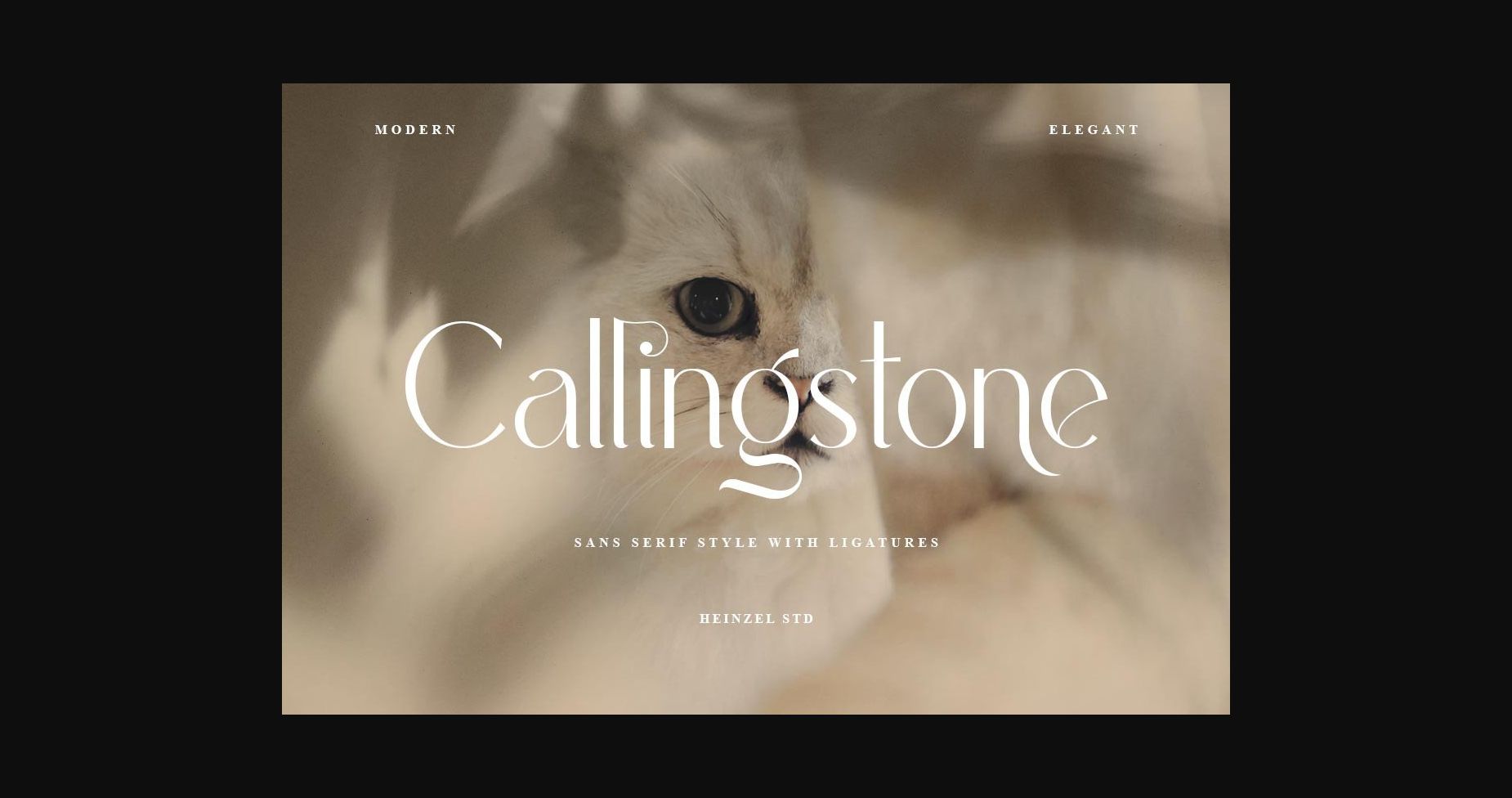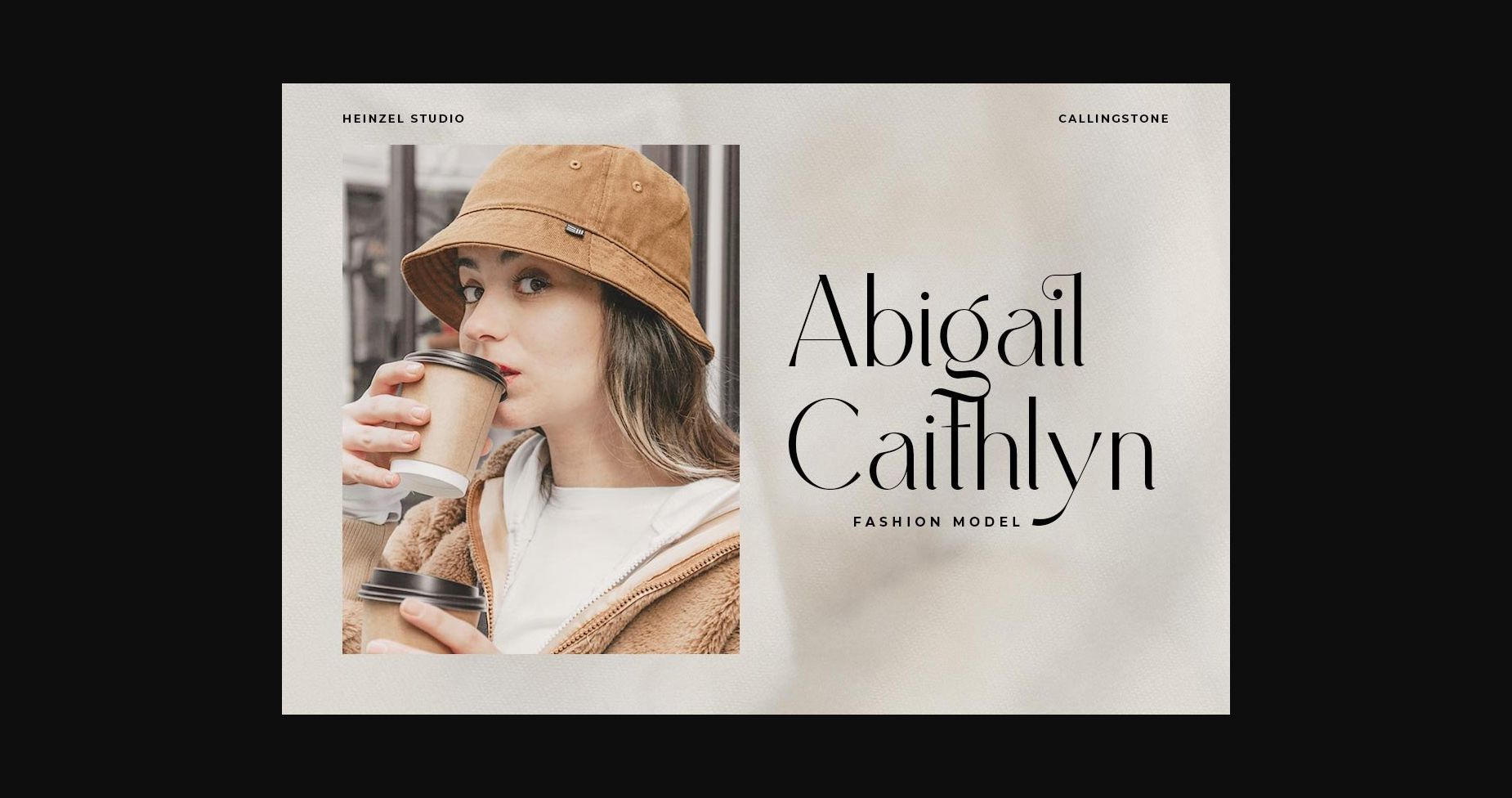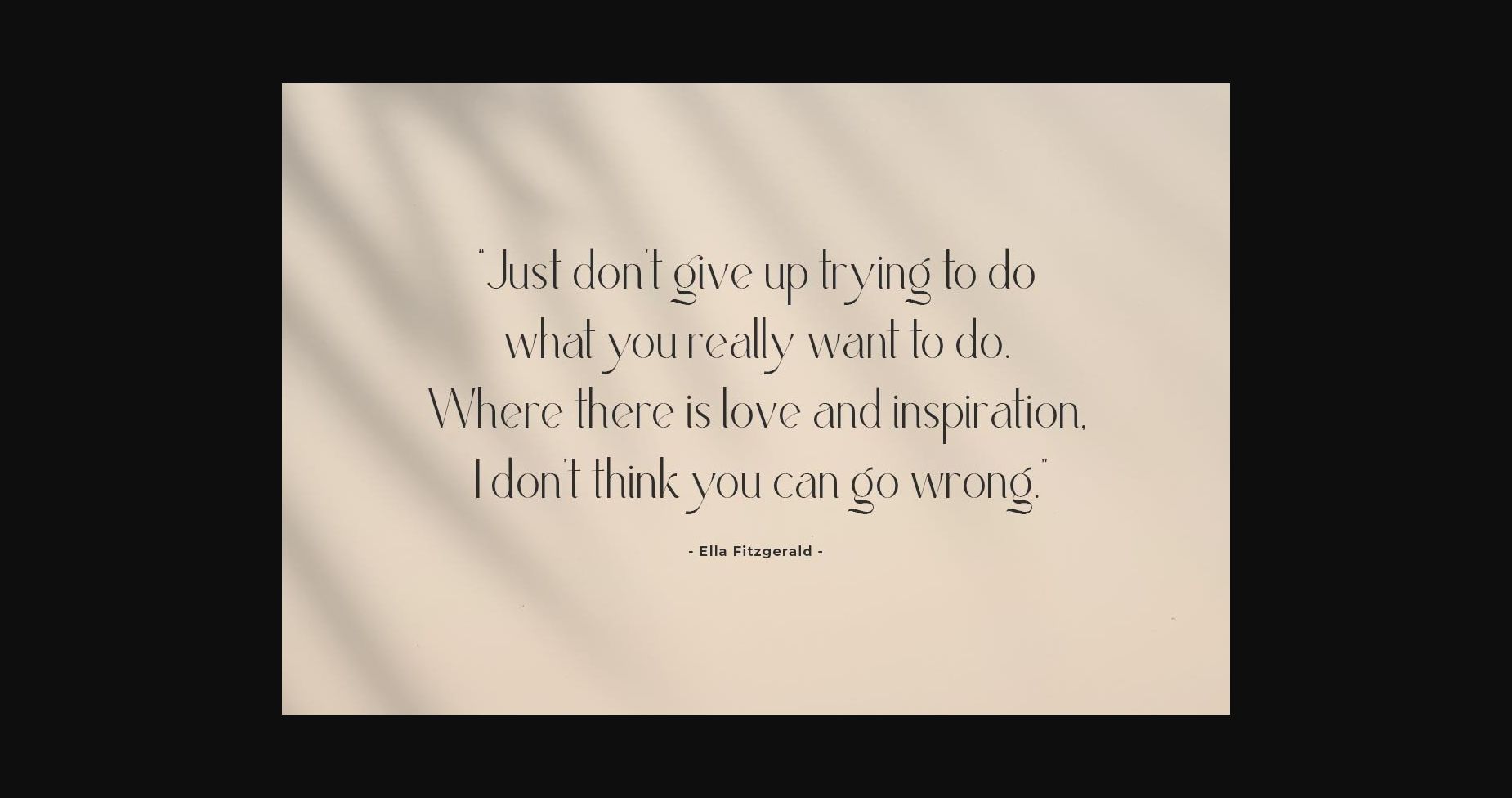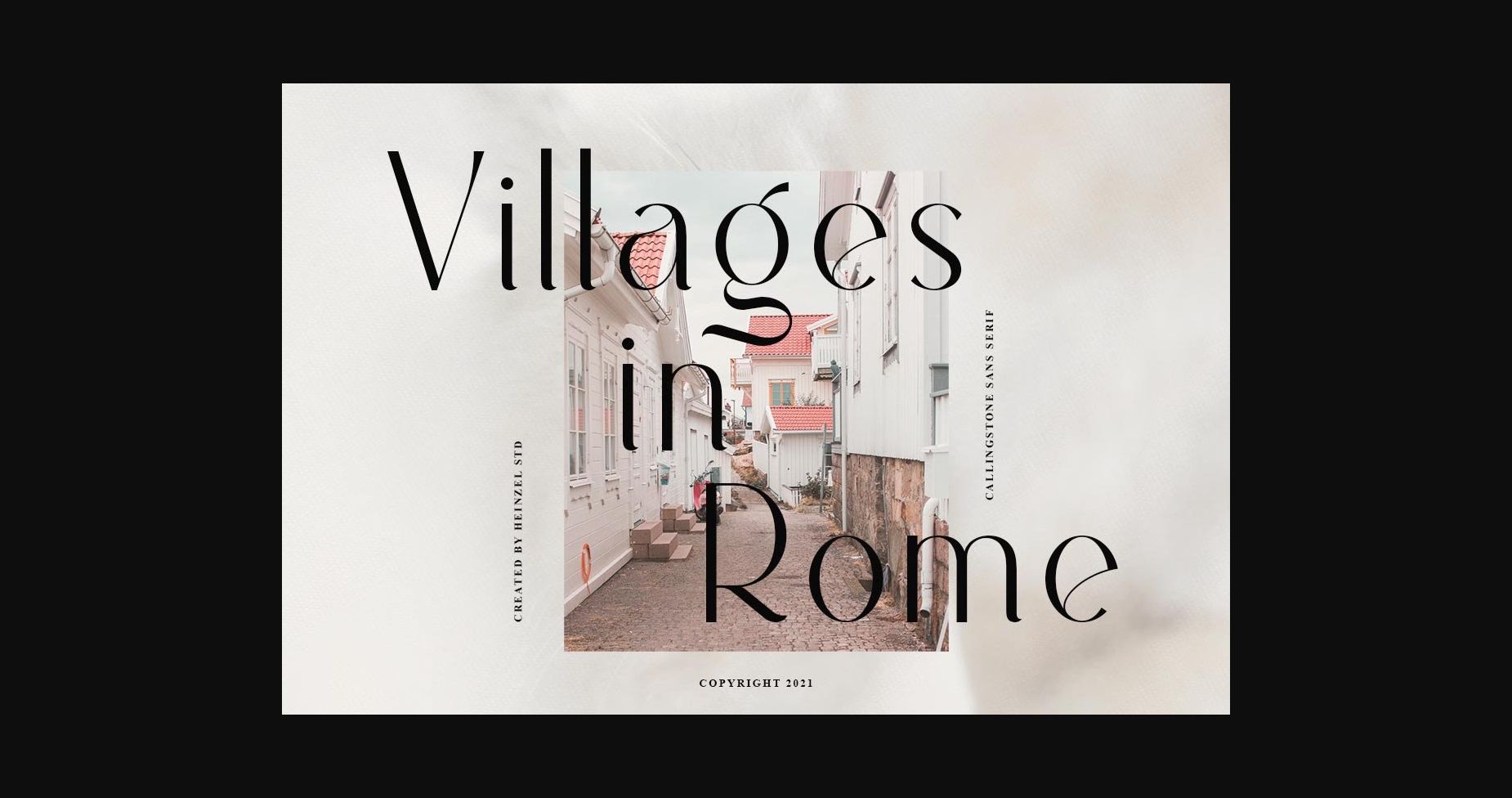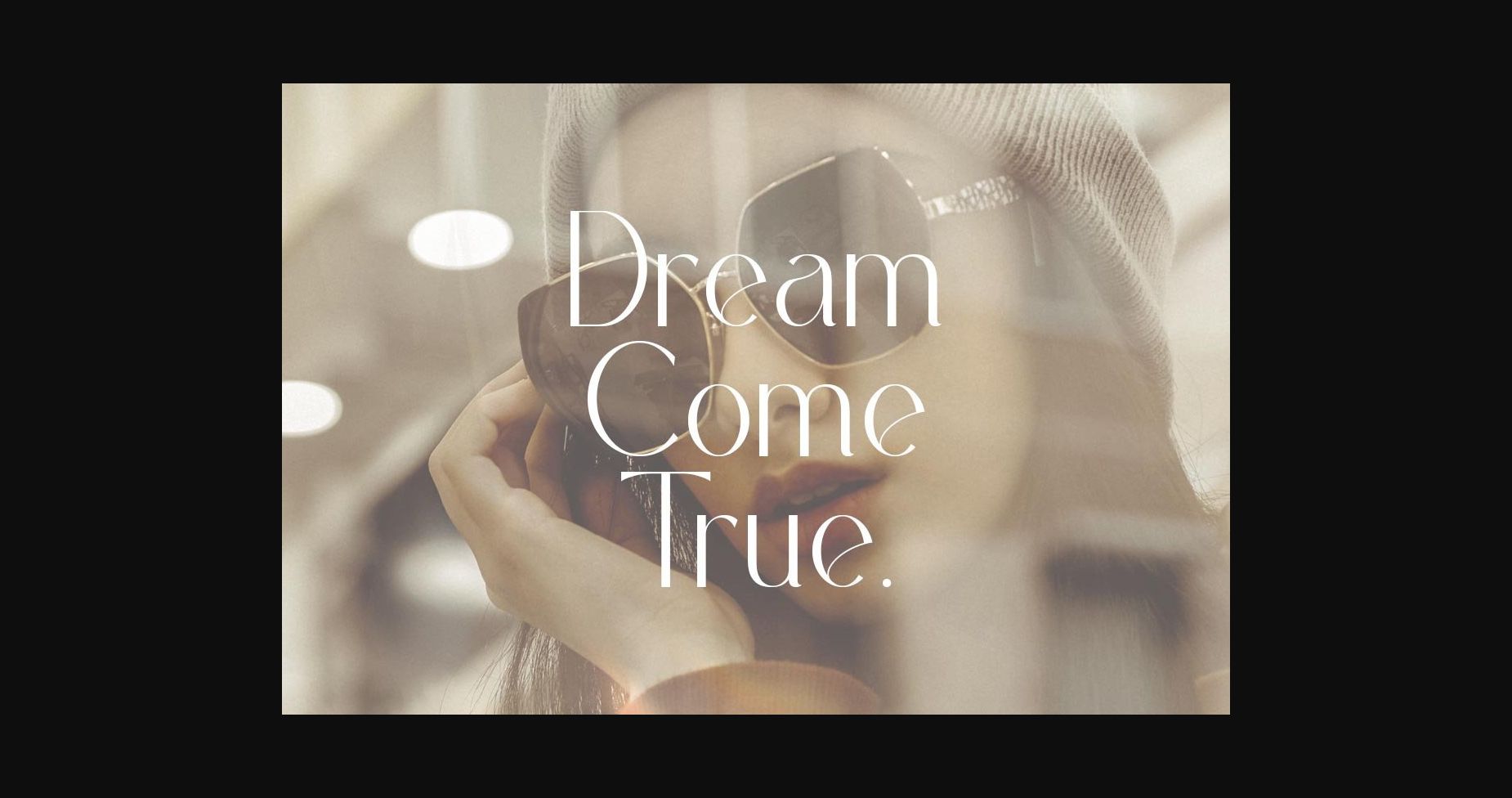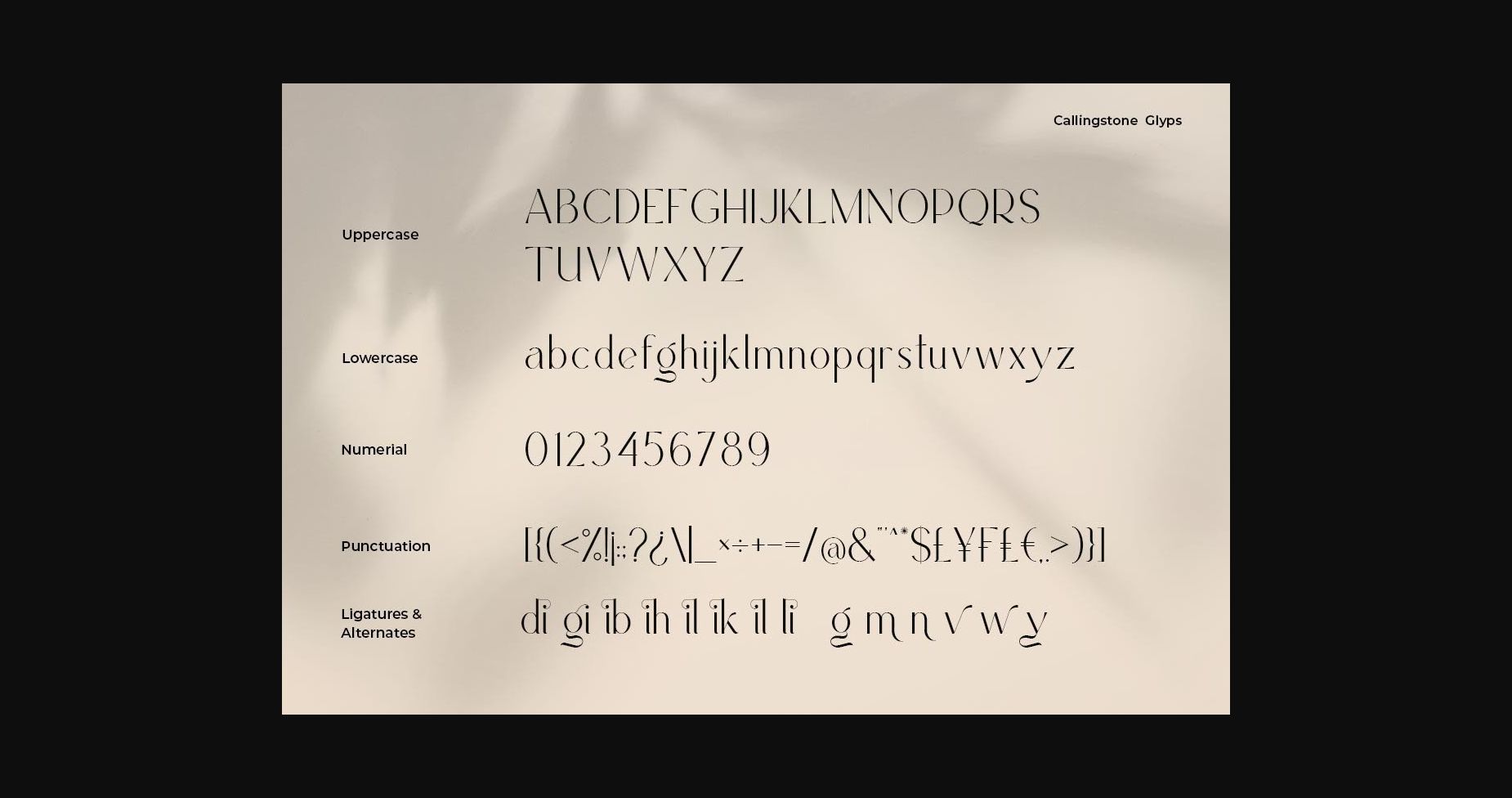
HomeSans Serif FontsCallingstone Font Sans Serif Fonts Callingstone Font FacebookXPinterestWhatsApp 1 of 9 ... Callingstone Font Poster 2... Callingstone Font Poster 3... Callingstone Font Poster 4... Callingstone Font Poster 5... Callingstone Font Poster 6... Callingstone Font Poster 7... Callingstone Font Poster 8... Callingstone Font Poster 9... About Callingstone Font Callingstone is an elegant and modern sans serif font. Fall for its dazzling style and use it to create gorgeous wedding invitations, beautiful stationary art, eye-catching social media posts, and much more! DOWNLOAD NOW People also explored Bishafa Font The Flag Font Kannisa Font Hati Font The Vaguer Font Seullanga Font Manasco Font Fountain Persona Trio Font Bloodlust Font 383 0 TagsCallingstone Font Previous articleLighters FontNext articleThin Toys Font LEAVE A REPLY Cancel reply Comment: Please enter your comment! Name:* Please enter your name here Email:* You have entered an incorrect email address! Please enter your email address here Website: Save my name, email, and website in this browser for the next time I comment. Personal Use Free BD Algebra Personal Use Free Read more about this font Bettari Personal Use Free Read more about this font Bahjera Personal Use Free Read more about this font New Normal Personal Use Free Read more about this font BLOG How to Cut Any Font on Cricut: Convert a Font to SVG (Free) Turn any font into a clean SVG so it cuts crisp on Cricut - a quick 3-step workflow using a free font-to-SVG tool. Elegant Wedding Invitation Fonts – Handwritten & Script Fonts Best Fonts for YouTube Videos: Make Your Thumbnails Stand Out Exploring Font Trends